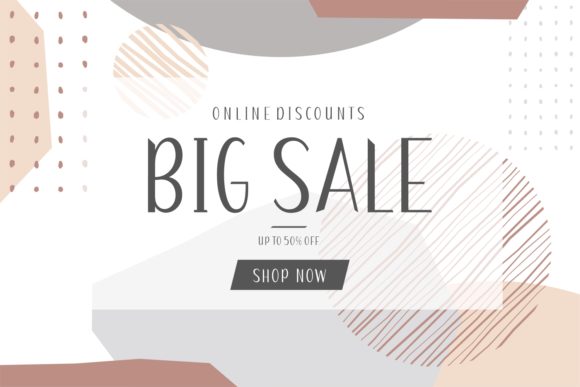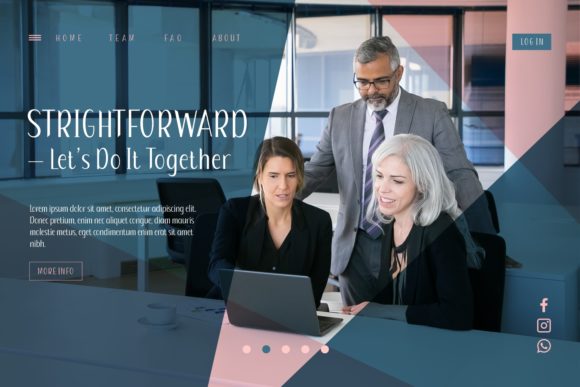
Unlock the Power of Jika Font: Elevate Your Creative Vision
Have you ever been stuck in a creative rut, staring at a blank page, wondering where to start? You’re not alone. As designers, we’ve all been there at some point. But what if you had the perfect tool to spark your imagination and bring your ideas to life? Enter Jika Font, a modern sans serif font designed to help you make a lasting impression.
This versatile font is more than just a typography choice – it’s a key to unlocking your creative potential. With Jika Font, you can add a touch of sophistication and elegance to your designs, making them stand out in a crowded market. Whether you’re working on a branding project, a marketing campaign, or a personal creative endeavor, Jika Font is the perfect addition to your toolkit.
Jika Font Key Features
- Unique Characteristics: Jika Font features a unique blend of modern and traditional design elements, making it a standout choice for designers looking to add a touch of elegance and sophistication to their work.
- Language Support: Jika Font supports a wide range of languages, including Latin, Cyrillic, and Greek scripts, making it a versatile choice for designers working on multilingual projects.
- Font Weight: Jika Font comes in a range of font weights, from Light to Bold, allowing designers to add depth and emphasis to their text.
Jika Font Review
I recently had the chance to work with Jika Font, and I must say, it’s a unique and interesting choice. ✨ The font’s bold and modern design is sure to grab attention, making it perfect for headlines or titles.
Here are some of the things I like about Jika Font:
- ✨ Unique and modern design, perfect for grabbing attention
- ✨ Works well for headings and titles
- ✨ Good for creating a sense of contrast and visual interest
- ⚠️ Limited legibility in small sizes or low-resolution displays
- ⚠️ May not be suitable for body text or large blocks of text
- ⚠️ Can be overwhelming if used too extensively
Overall, I think Jika Font is a great choice for designers looking to add a touch of modernity to their projects. It’s perfect for creating eye-catching headlines or titles, but it may not be the best choice for body text or large blocks of text.
Tips for Getting the Most Out of Jika Font
For optimal results, use Jika Font in bold or italic styles to add emphasis to your text. You can also combine Jika Font with other fonts to create a unique and eye-catching design.
Jika Font is ideal for creative projects, such as graphic design, typography, and branding. It can also be used for titles, headings, and body text in presentations and documents.
Q: What is the recommended font size for Jika Font in digital designs?
The recommended font size for Jika Font in digital designs depends on the screen resolution and intended use. For standard screens (72 dpi), use font sizes between 12 and 24 points for body text and 36 to 48 points for headings. For high-resolution screens (144 dpi or higher), you can use smaller font sizes, such as 9 to 18 points for body text and 24 to 36 points for